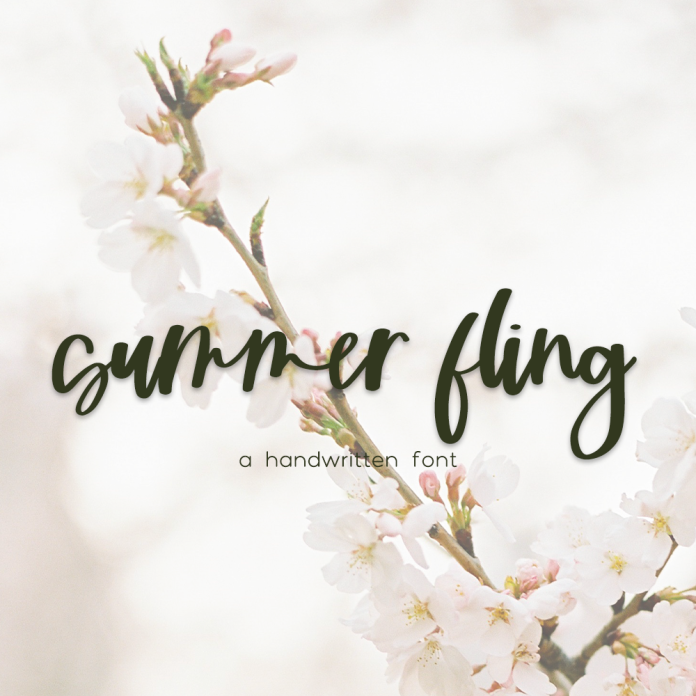
Summer Fling Script Font
Introducing Summer Fling Script, a handwritten modern calligraphy font. This casual font features thicker strokes for a more bold look, and common double letter ligatures to mimic the handwritten aesthetic. Summer Fling Script is best for: - logos + branding - website design + website accents - think travel blogs, fashion blogs, & more - clean print design, like magazines + flyers - header elements that need handwritten touch - quote graphics for social media Summer Fling includes: - full upper + lowercase characters - numbers + punctuation - Western European Language Support - 14 ligatures - bb, cc, dd, ee, ff, gg, ll, mm, nn, oo, pp, rr, ss, tt - PUA-encoding